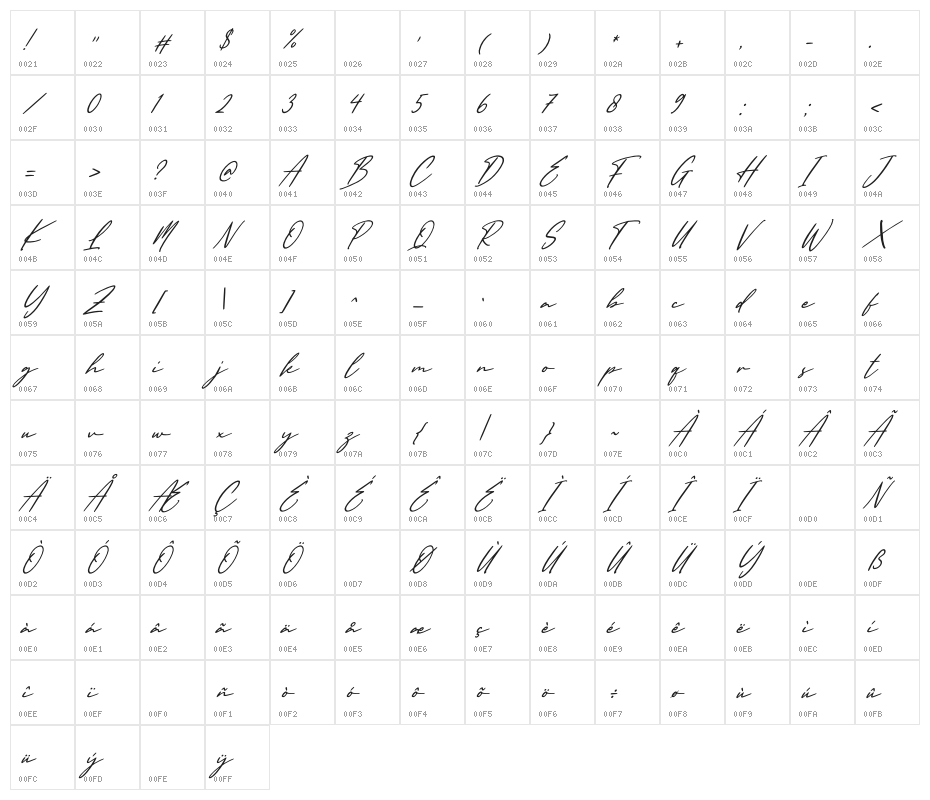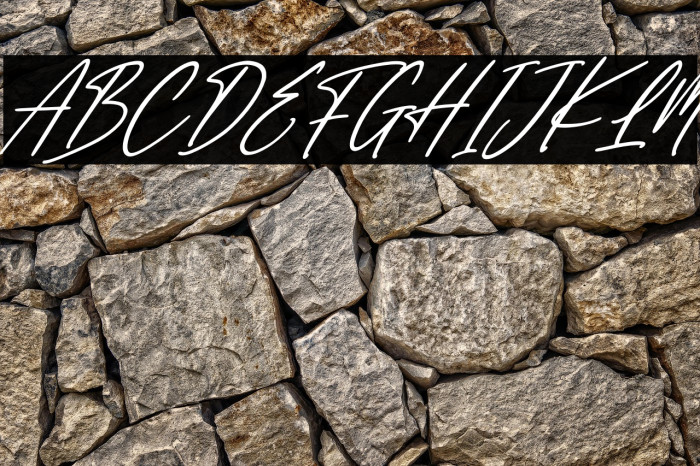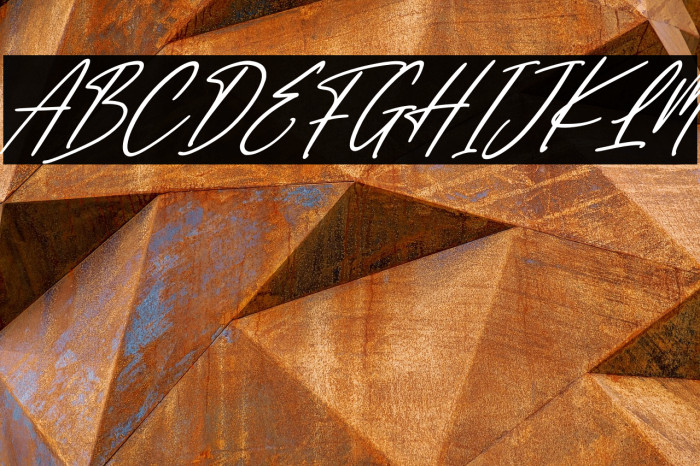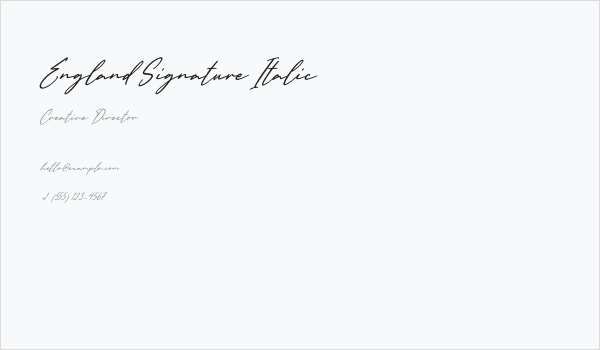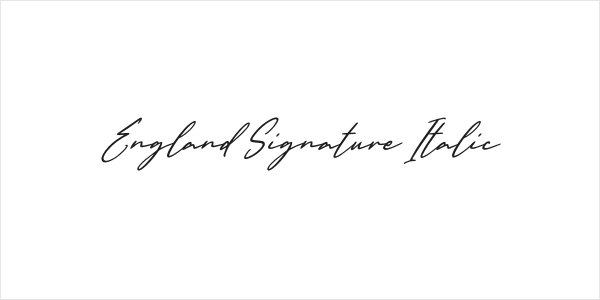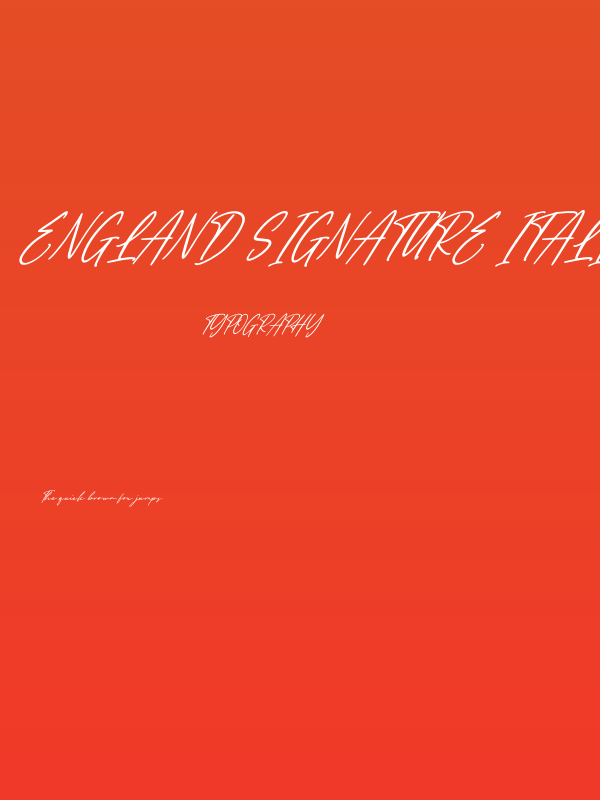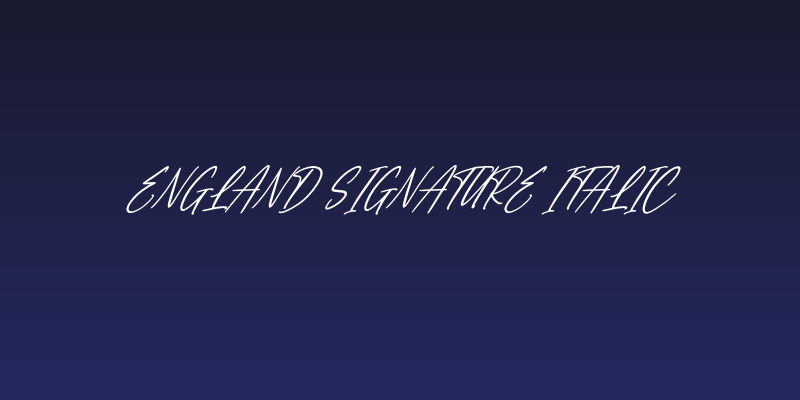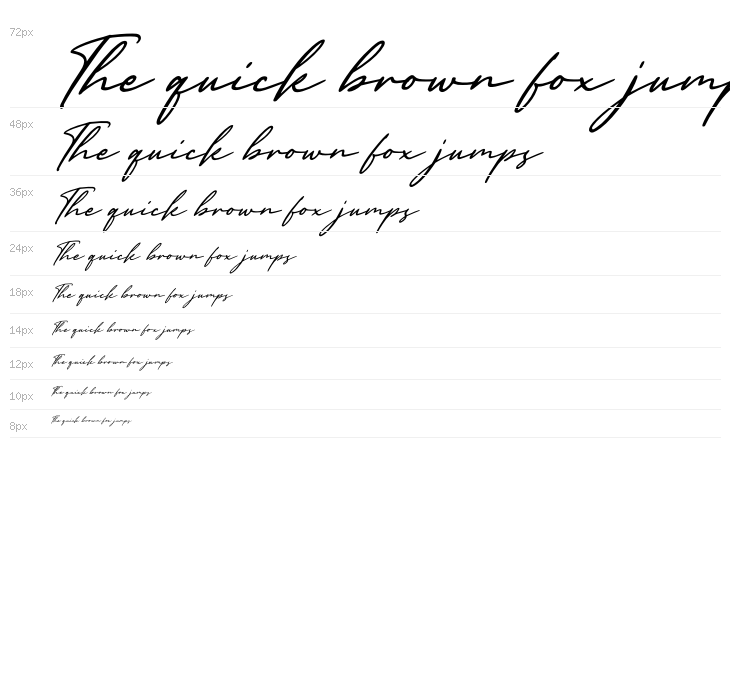
England Signature Italic Font
England Signature Italic Description
This font exudes elegance and sophistication with its flowing, cursive style. The letters are connected in a smooth, continuous manner, reminiscent of classic handwriting. The uppercase letters are bold and prominent, while the lowercase letters maintain a graceful, fluid appearance. The numbers and special characters are designed to complement the overall script style, adding a touch of refinement. The italic slant enhances the dynamic and expressive nature of the font, making it ideal for projects that require a personal and artistic touch.
| Overall Style | Elegant, Artistic |
| Proposed Projects | Ideal for wedding invitations, personal branding, elegant stationery, and artistic projects. |